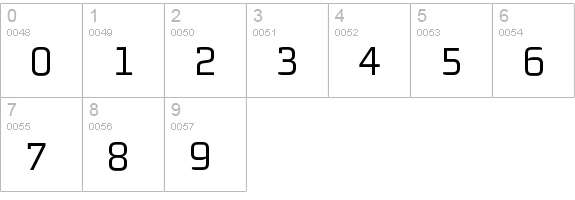
MorganAvec RegularLining font is a striking typeface that exudes elegance and sophistication. With its clean lines and graceful curves, this font is perfect for adding a touch of style to any design project. The versatility of MorganAvec RegularLining allows it to be used in a wide range of applications, from branding to editorial design. What makes MorganAvec RegularLining even more appealing is that it is completely free to download at FontsMarket.com. This means that you can elevate your designs without any cost barriers. Whether you are a professional graphic designer or someone looking to enhance their personal projects, MorganAvec RegularLining is a valuable asset that you can access easily and for free. Don't miss out on this opportunity to enhance your typography game with this beautiful font!